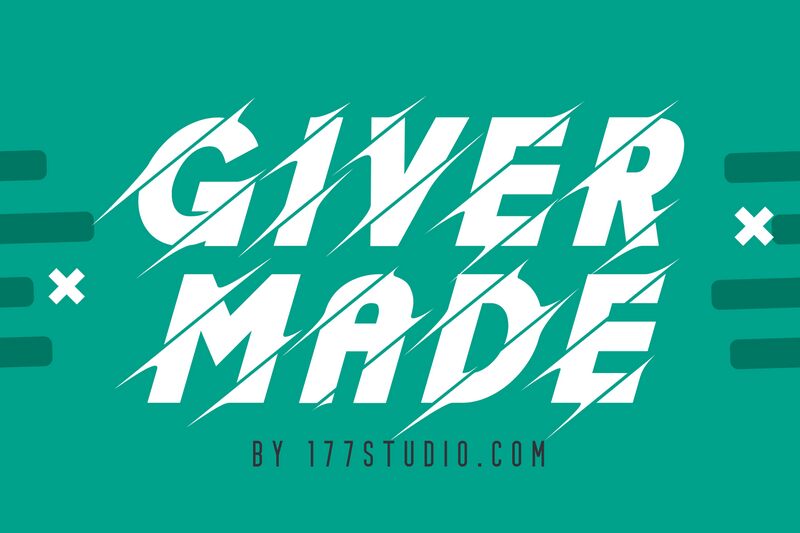
Giver Made Italic
Giver Made Italic, part of the Giver Made font family designed by 177Studio, is a display font with a distinct distorted style. Its semi-light weight adds a touch of elegance to its futuristic and bold nature. This font exudes speed, angle, and showmanship, making it perfect for projects that require a strong and dynamic visual impact.
Whether it's logos, printed quotes, invitations, image overlays, greeting cards, product packaging, or text headers - Giver Made Italic is sure to impress. Let your imagination run wild and bring this font to life in whatever creative endeavor you embark on.